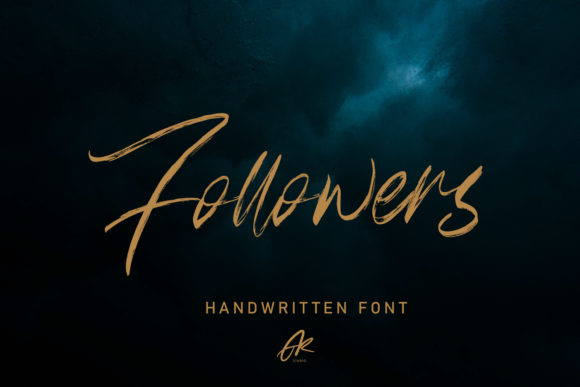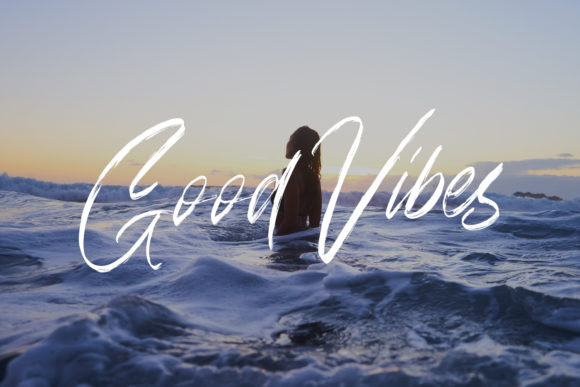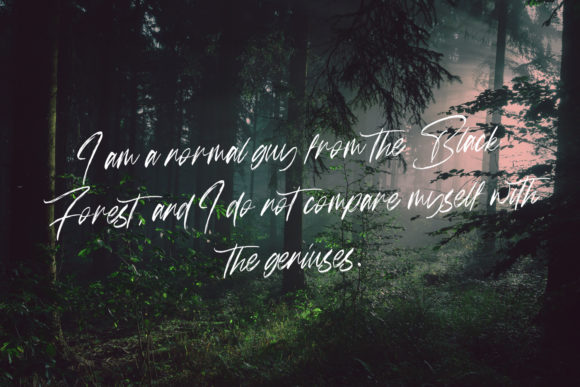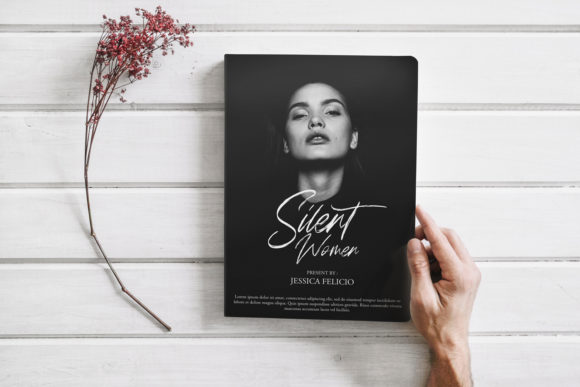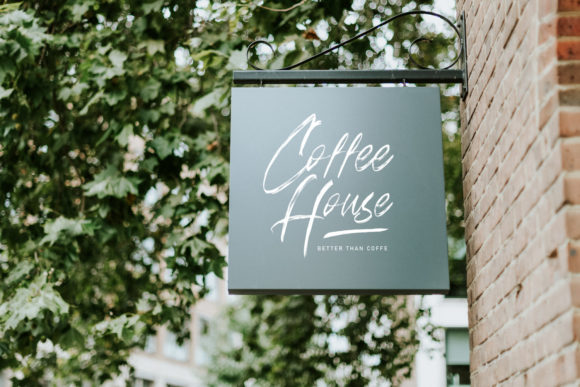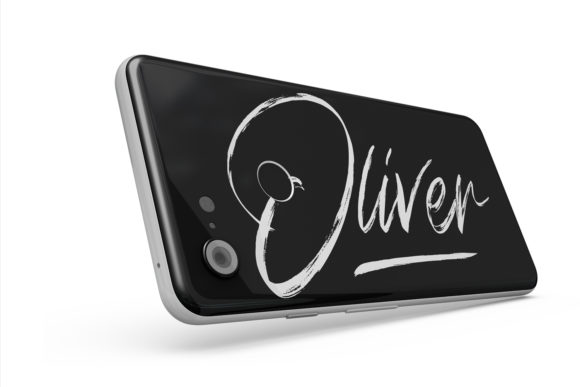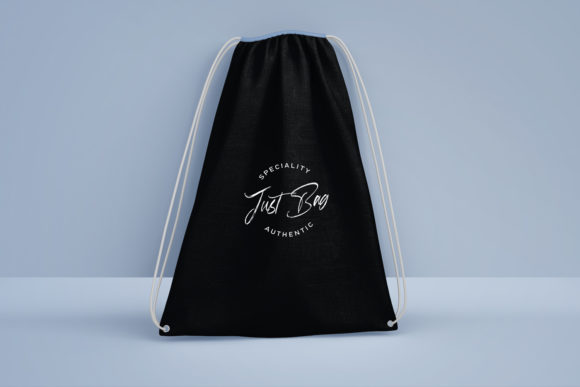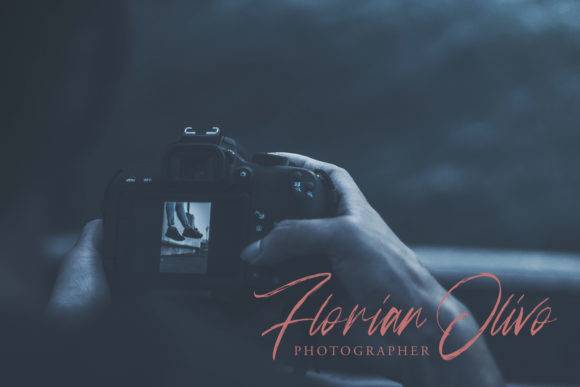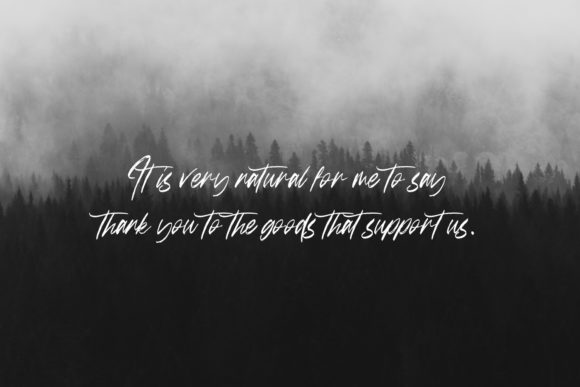
Followers Font
About Followers Font
Followers is modern brush font. It maintains its classy calligraphic influences while feeling contemporary and fresh. This versatility will appeal to a wide range of crafty ideas, from letterheads and titles, to stationery.